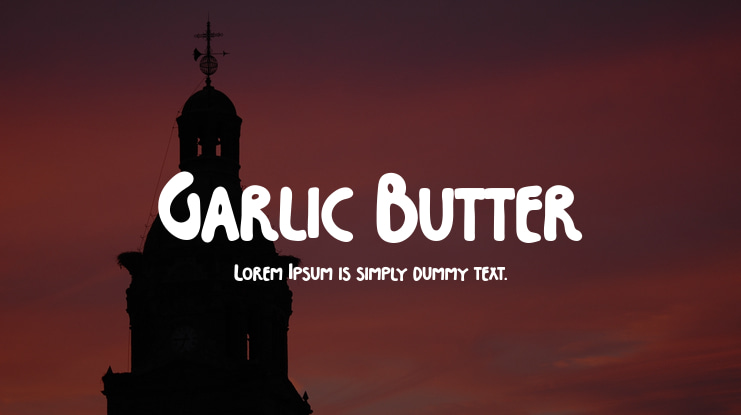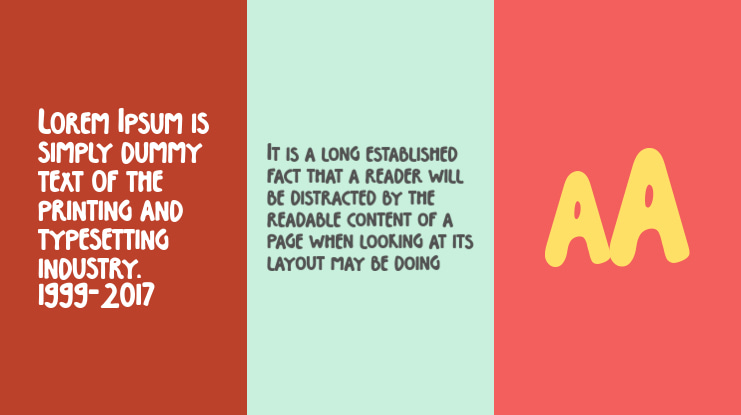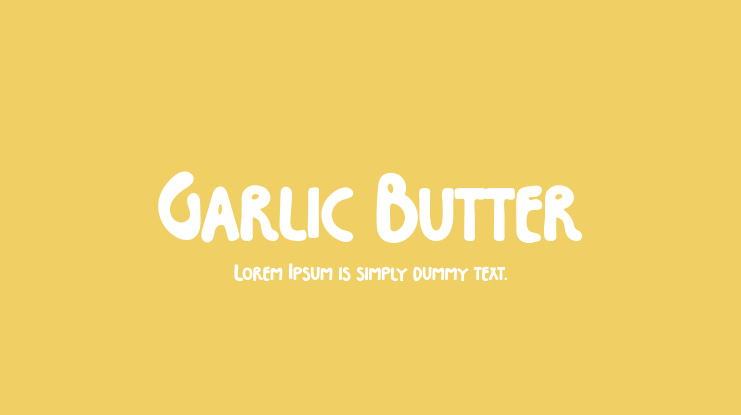
Garlic Butter Font
Garlic Butter is a cute and sweet handwritten font with an incredibly friendly feel. Whether it’s for logos, prints, cards, or posters – Garlic Butter will look spectacular.